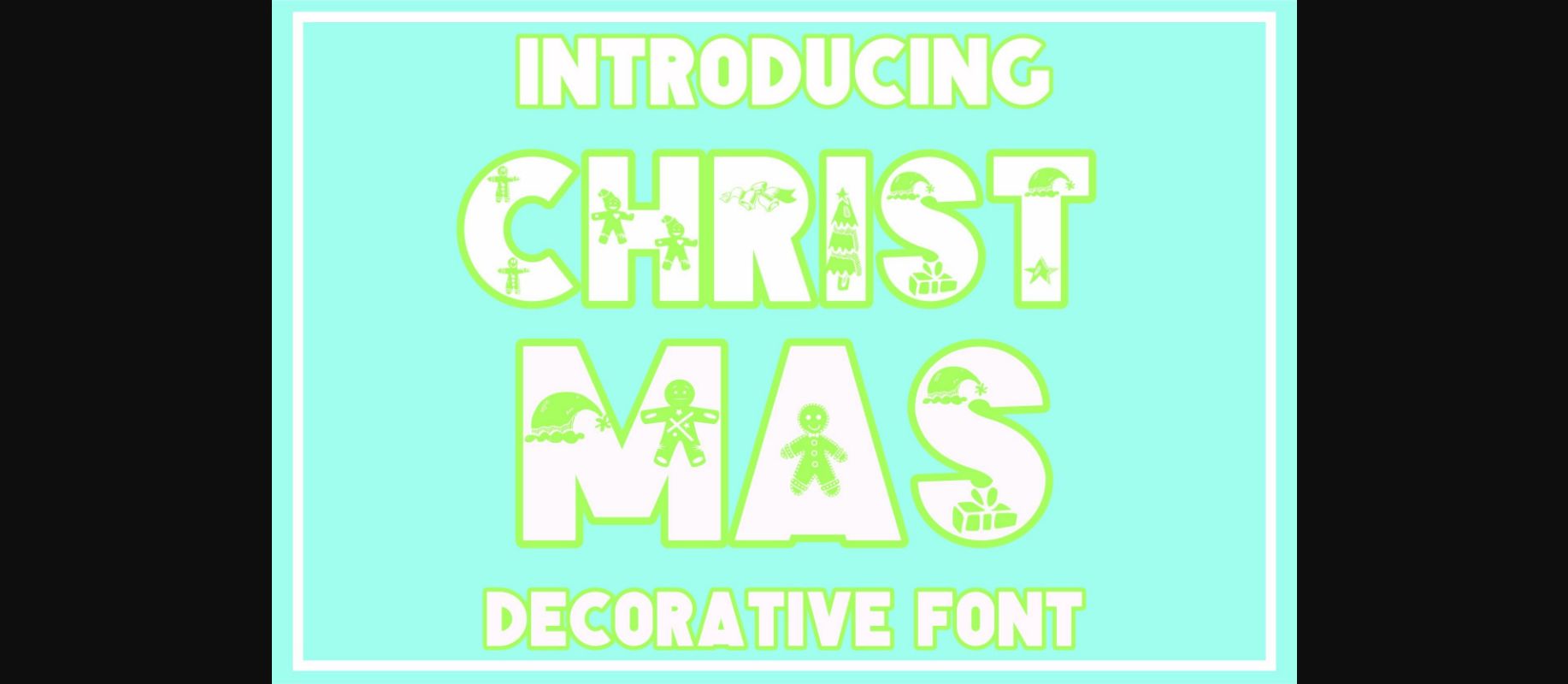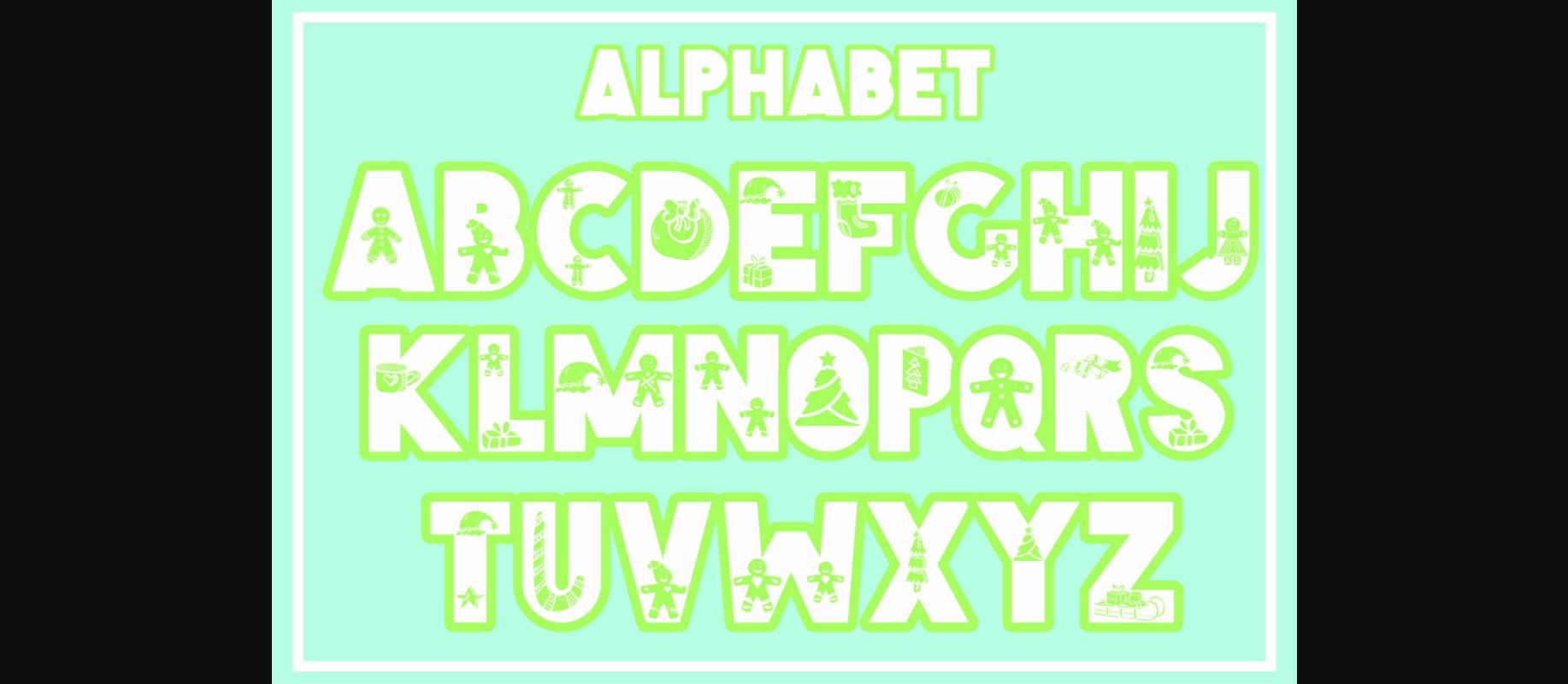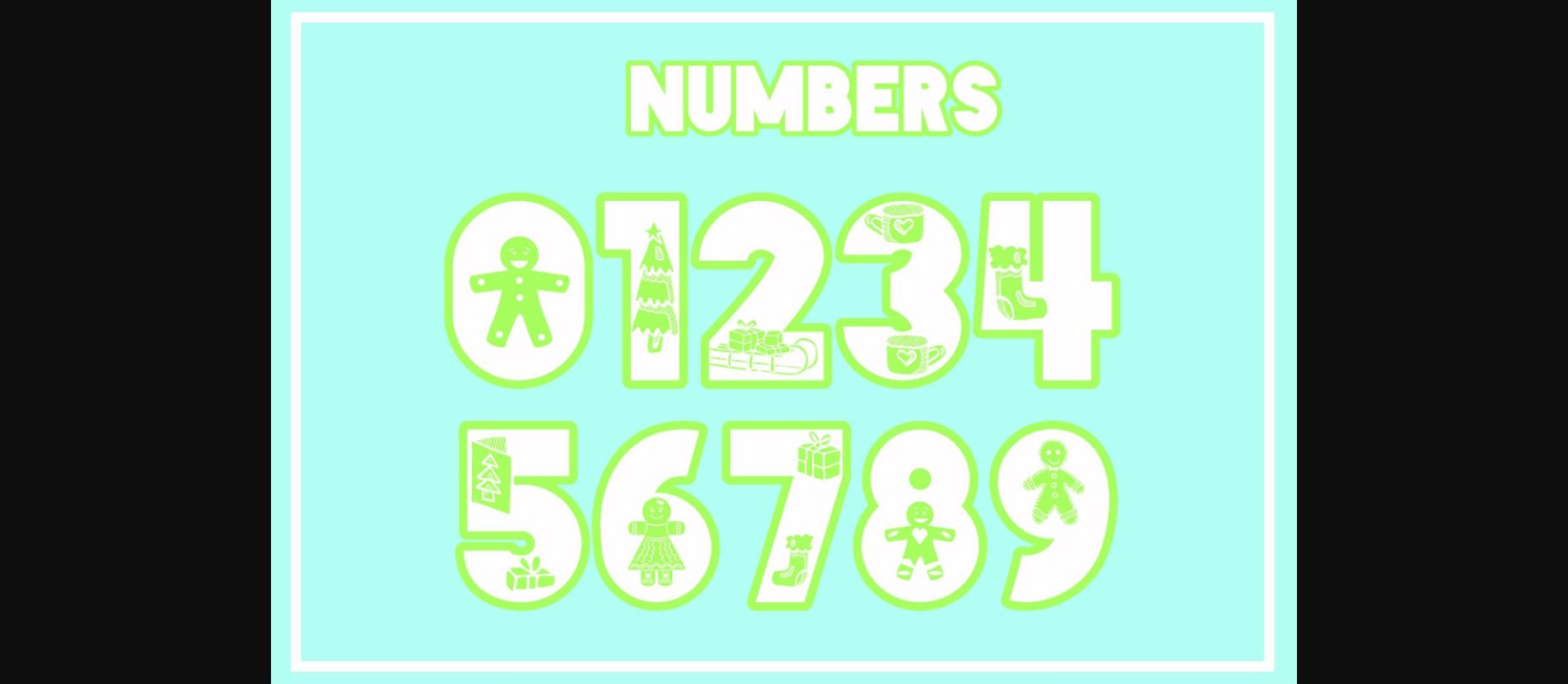
HomeDecorative FontsChristmas Font Decorative Fonts Christmas Font FacebookXPinterestWhatsApp 1 of 5 ... Christmas Font Poster 2... Christmas Font Poster 3... Christmas Font Poster 4... Christmas Font Poster 5... About Christmas Font Christmas is a cute and festive decorative font. It has a cozy wintery vibe and it will be a hit for any Christmas design that you want to add it to. DOWNLOAD NOW People also explored Goster Nathasyia Script Font Crazy Wish Font Billar Font Pashion Font Lemontea Squash Font Billy Stephanie Font Love Batu City Font Soulhie Font 449 0 TagsChristmas Font Previous articleCrossword Puzzle FontNext articleCrossword Lover Font LEAVE A REPLY Cancel reply Comment: Please enter your comment! Name:* Please enter your name here Email:* You have entered an incorrect email address! Please enter your email address here Website: Save my name, email, and website in this browser for the next time I comment. Personal Use Free Andolas Personal Use Free Read more about this font Girl Personal Use Free Read more about this font Wanita Cantik Personal Use Free Read more about this font Lumber Personal Use Free Read more about this font BLOG Transform Your Website: Elevate Your Typography with 7 Best Web Font Generators Are you ready to transform your website's typography from ordinary to extraordinary? Great! Today, we're diving into the world of web font generators, which... Using Fonts in Digital Marketing: Tips to Strengthen Your Brand Identity Free Fonts Risk: Why Free Fonts Can Be Dangerous for Designers Top 7 Google Fonts Alternatives for Faster and Privacy-Friendly Web Design (2025)